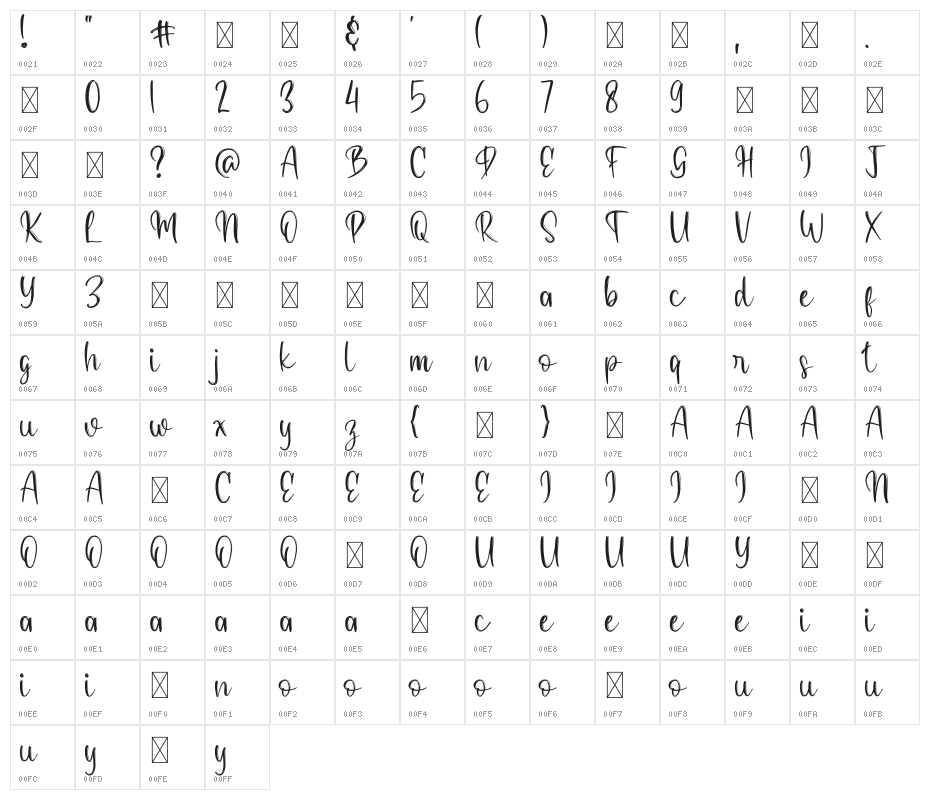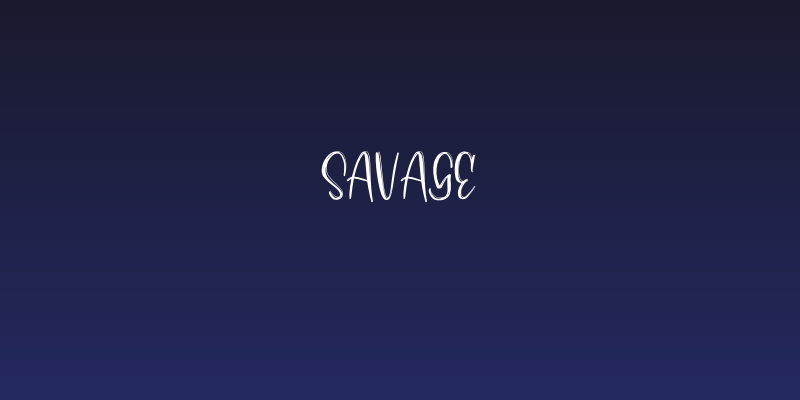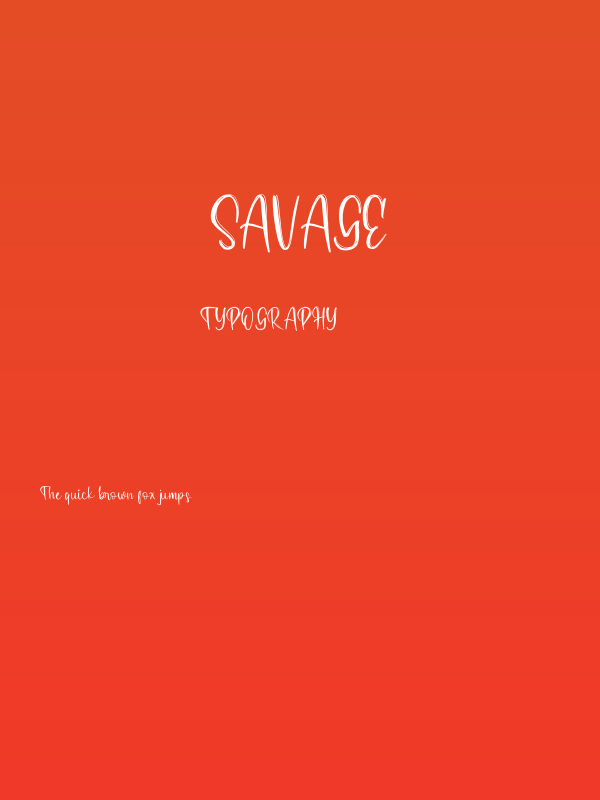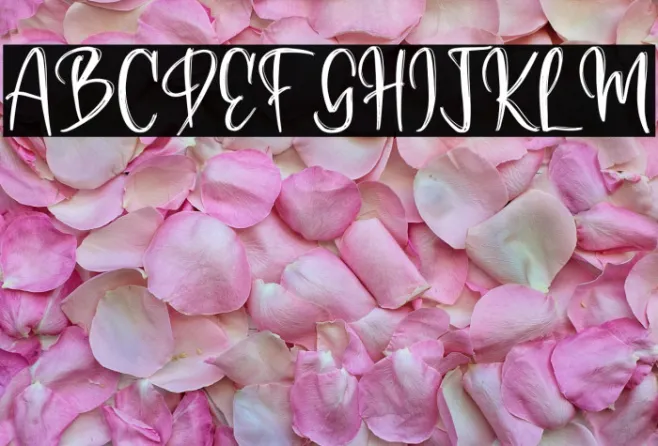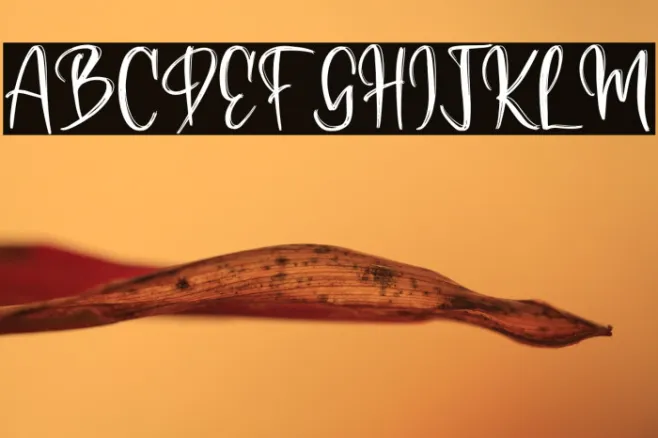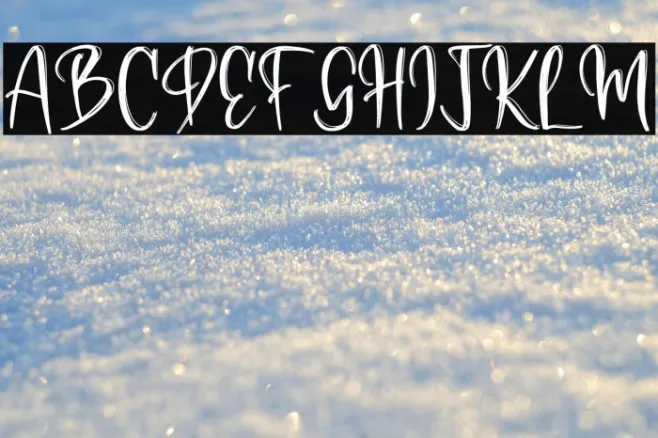
Savage Font
Savage Description
This font features a bold, expressive script style with a hand-drawn appearance. The letters have a playful and dynamic flow, characterized by thick and thin strokes that create a lively rhythm. The uppercase and lowercase letters maintain a consistent style, with slightly exaggerated curves and loops that add to its whimsical charm. The numbers and special characters follow the same aesthetic, ensuring a cohesive look across all elements. This font is perfect for projects that require a personal touch or a sense of creativity and fun.